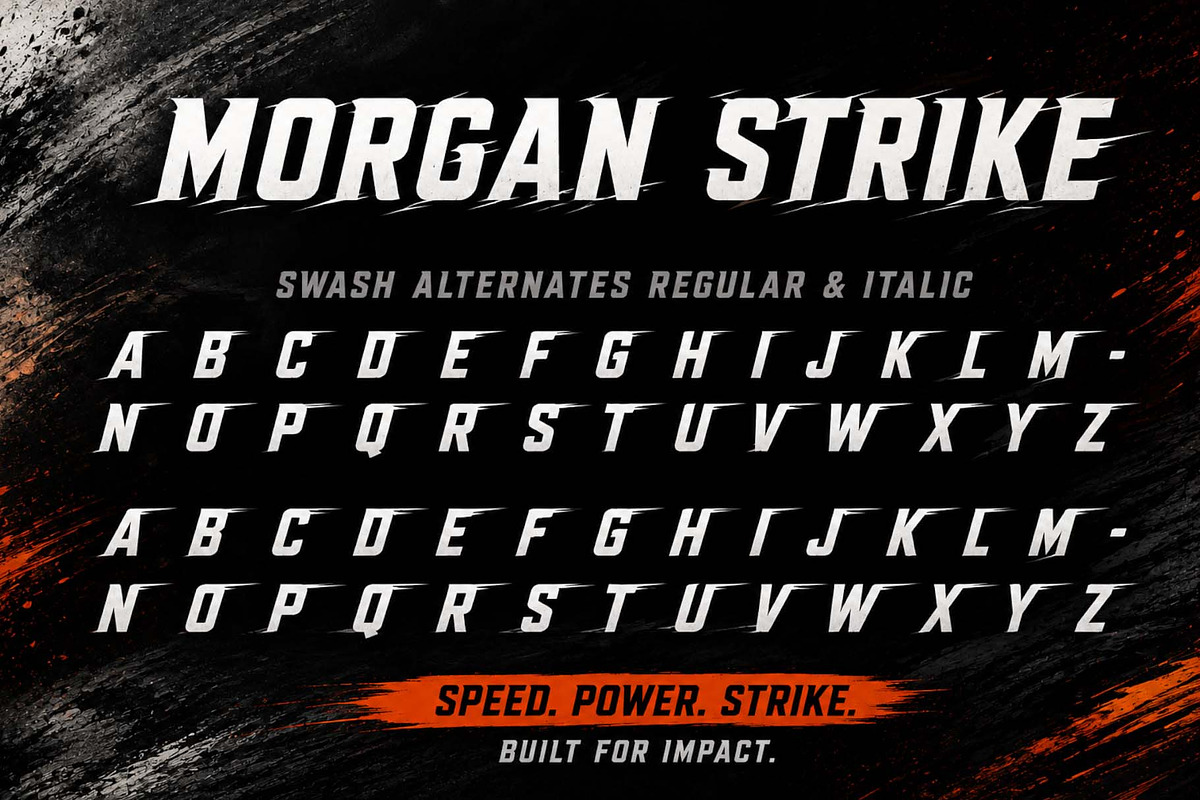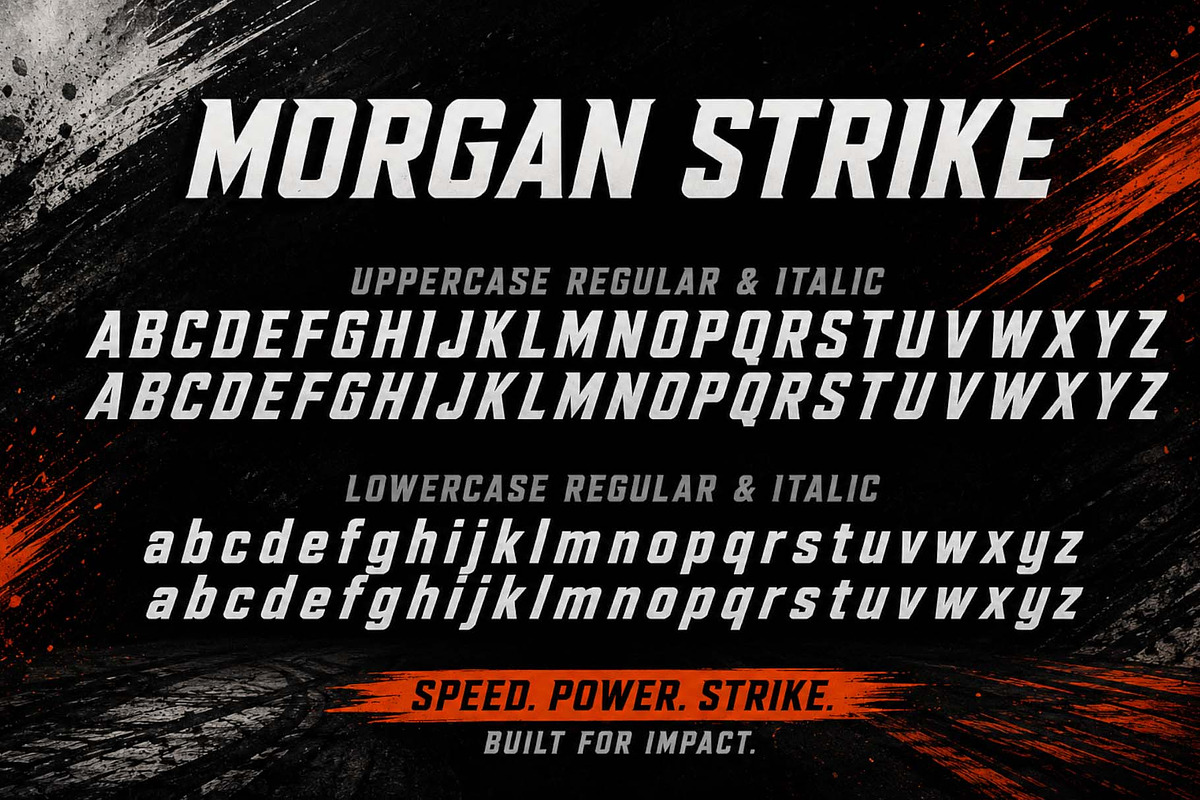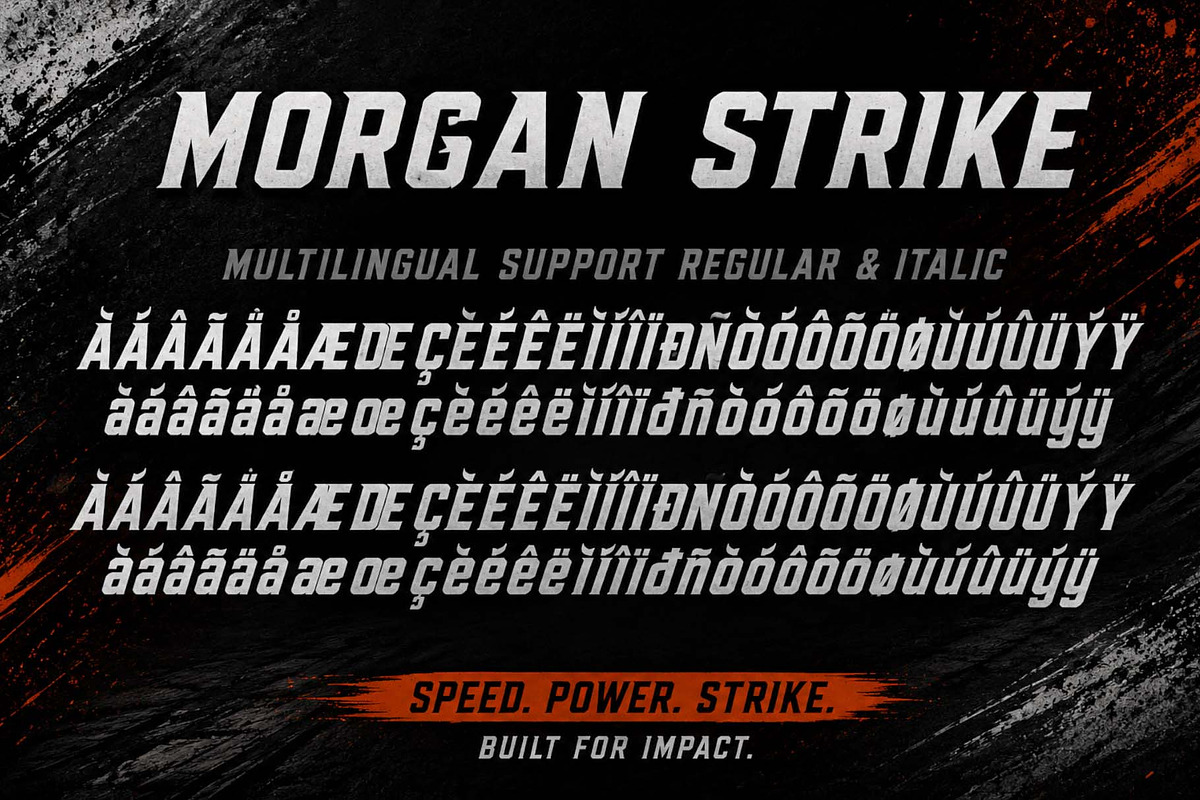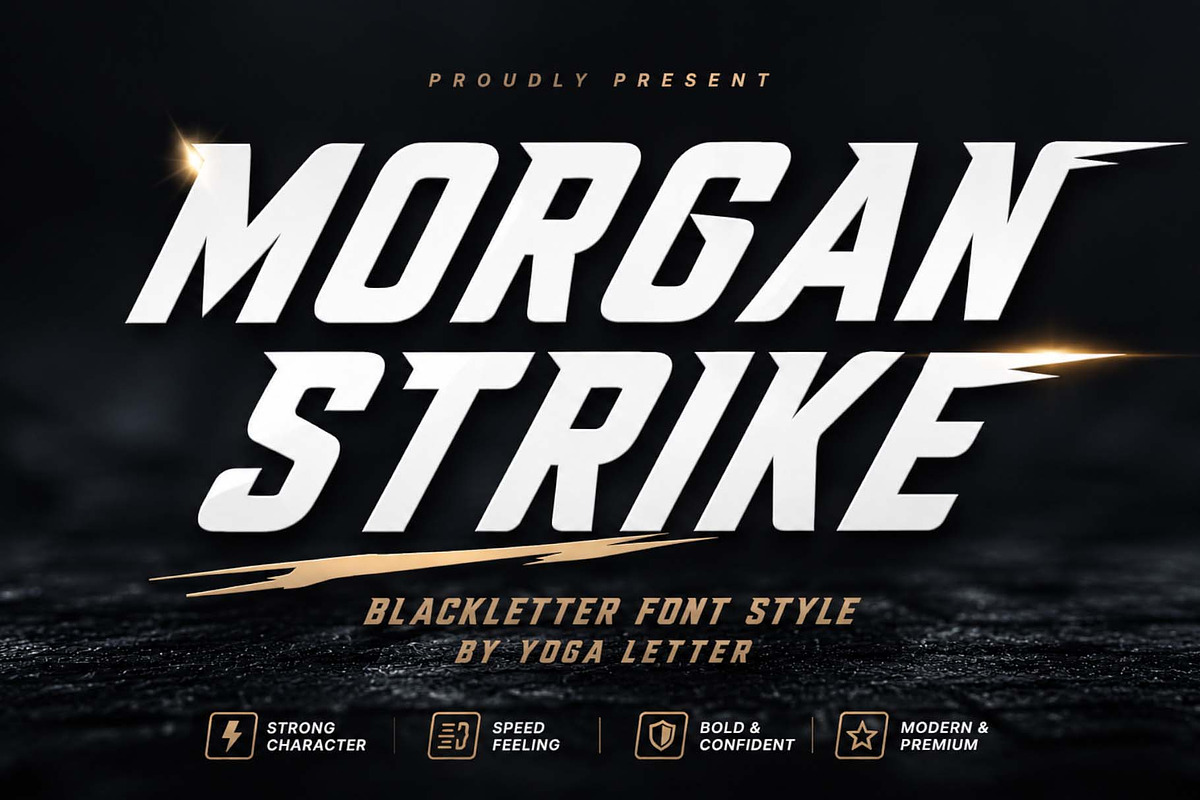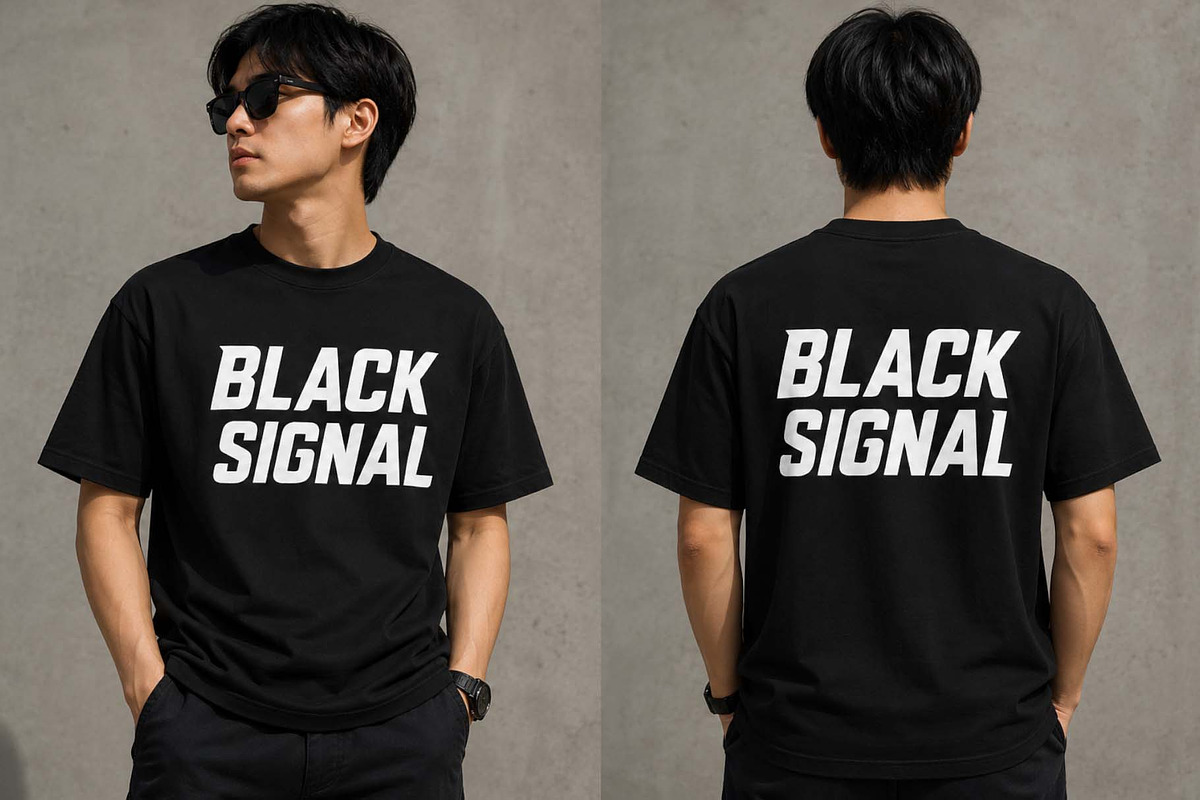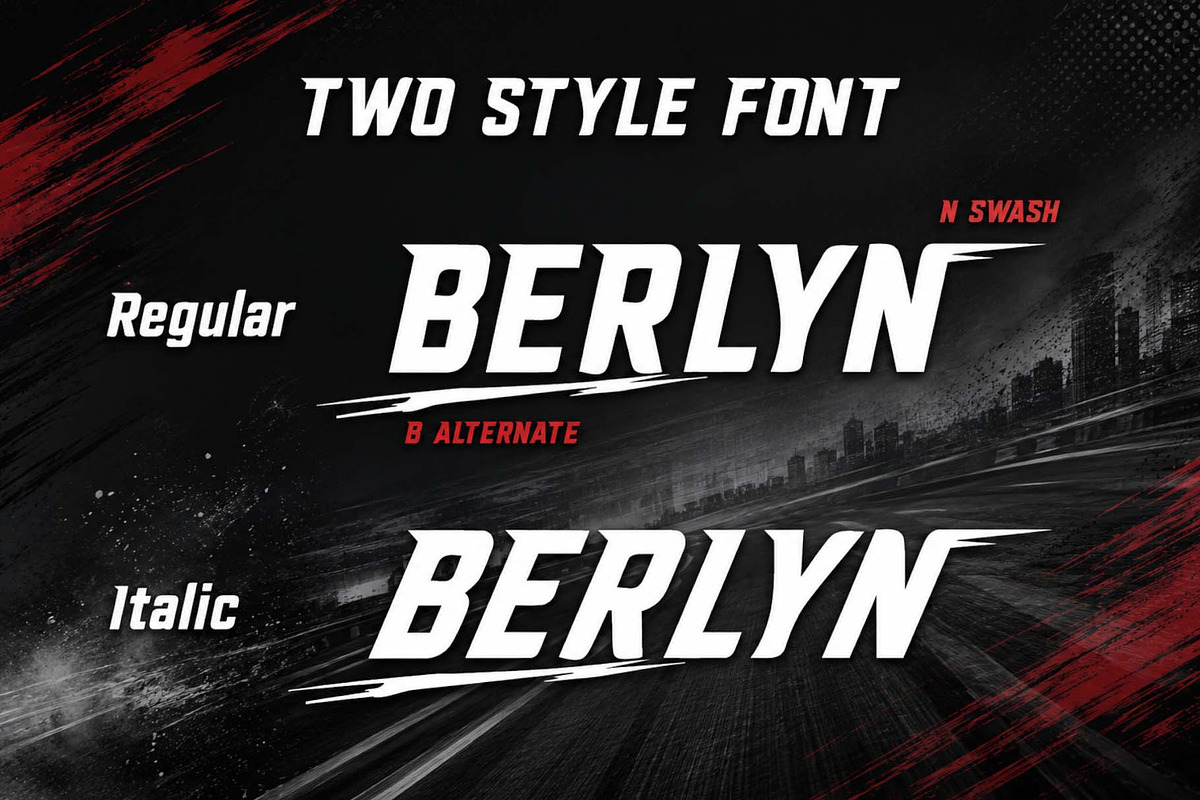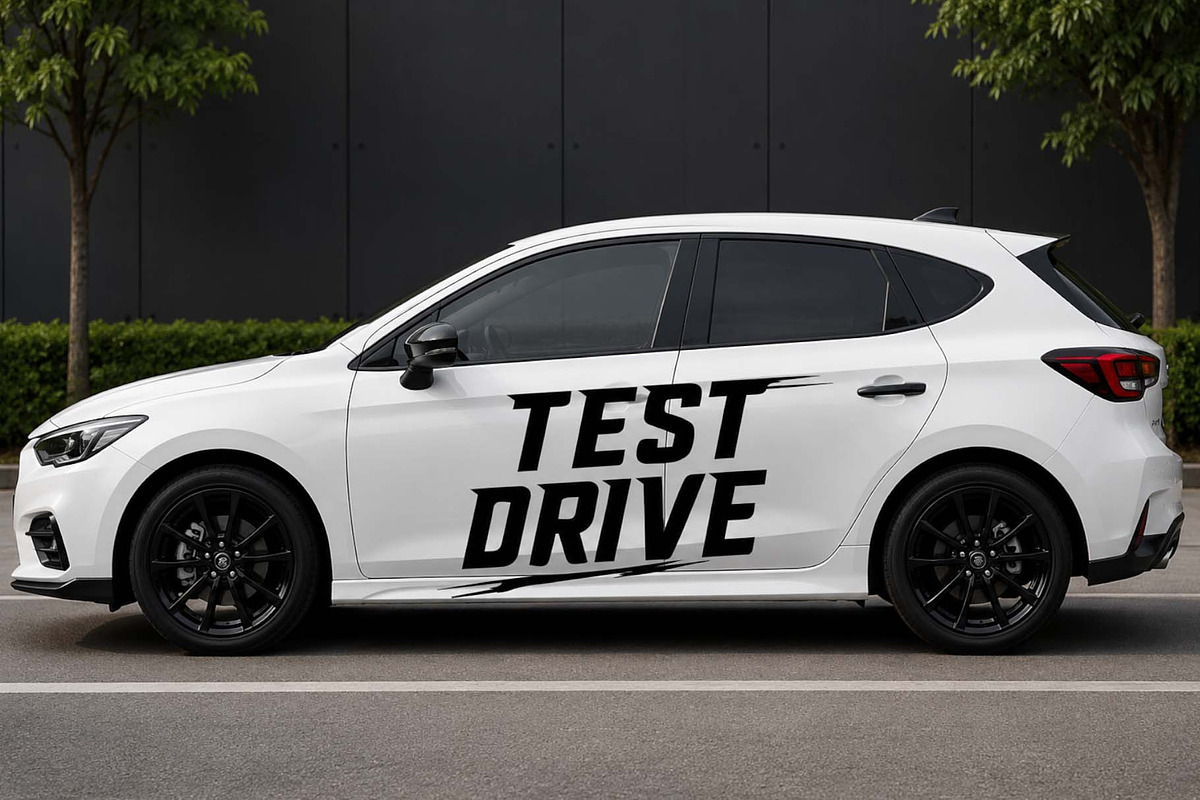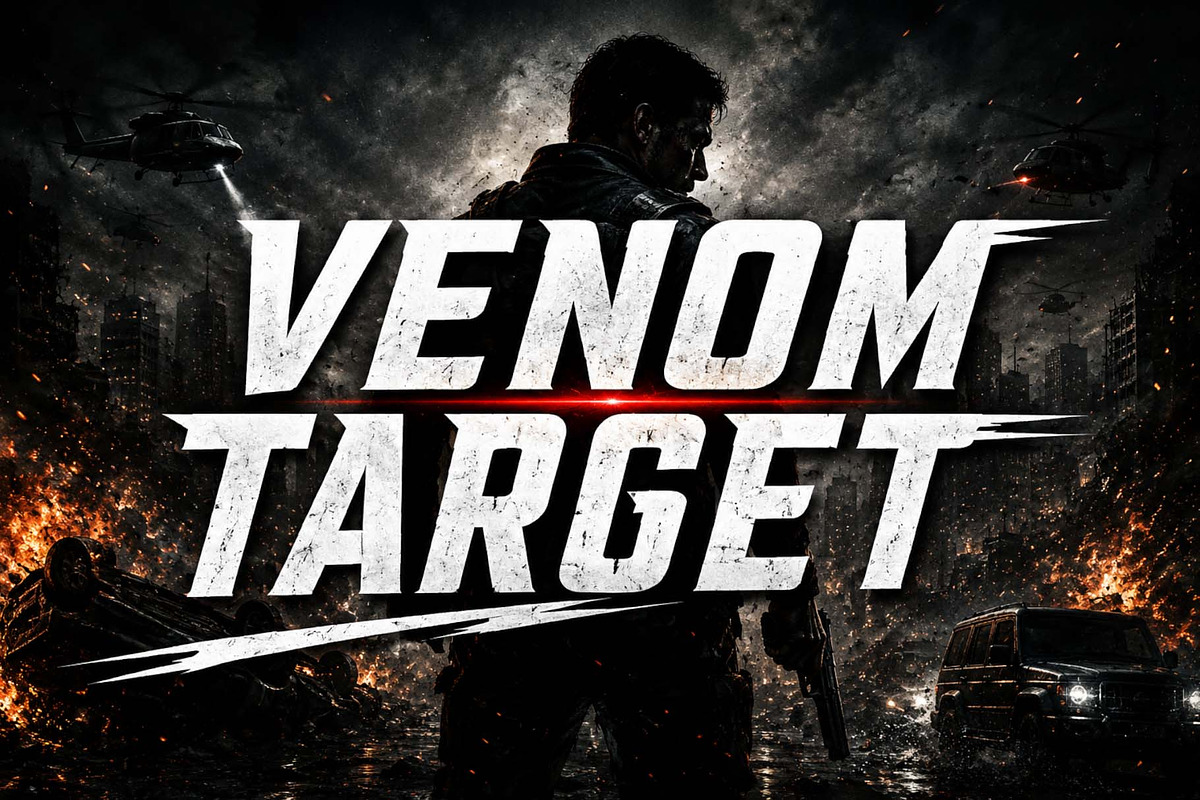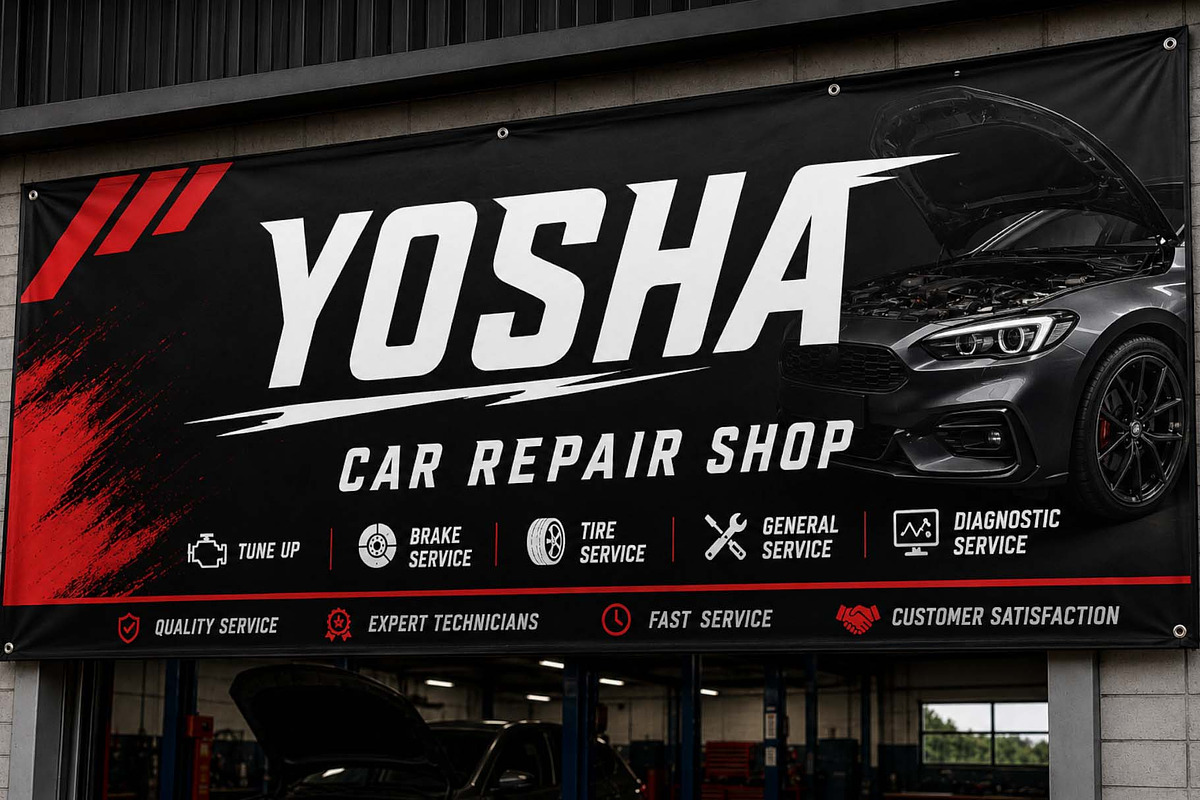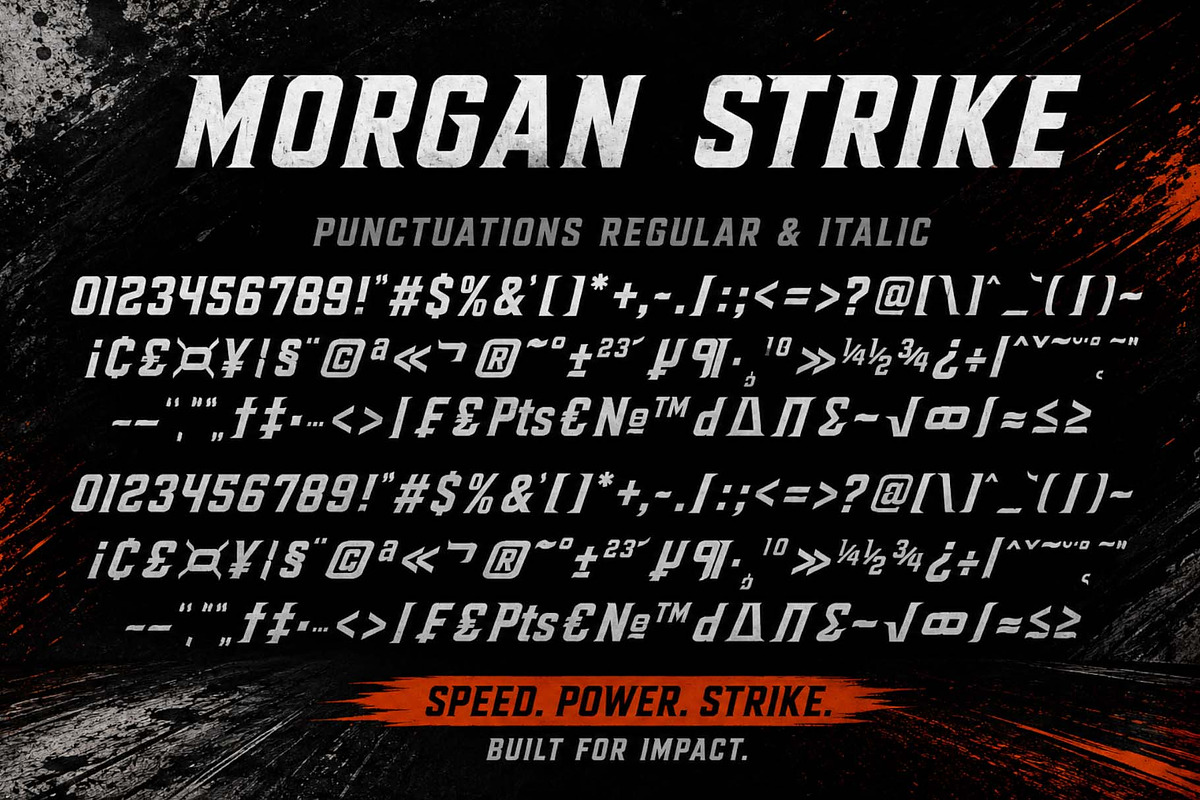
Morgan Strike
"Morgan Strike" is a modern and premium blackletter font. This font has a strong character, a speedy feeling, bold, and confident. It has two styles: regular and italic, equipped with alternates, swashes, uppercase letters, lowercase letters, numerals, punctuations, and multilingual support. It is suitable for business branding, logos, print, banners, movie titles, product names, business logos, and more.